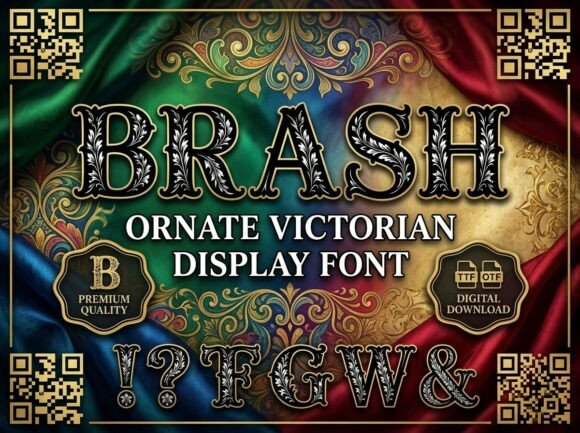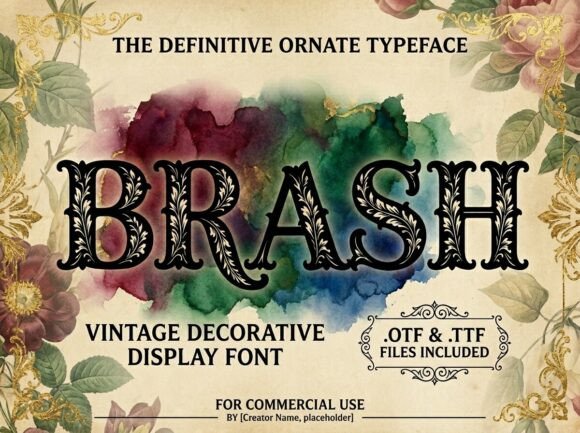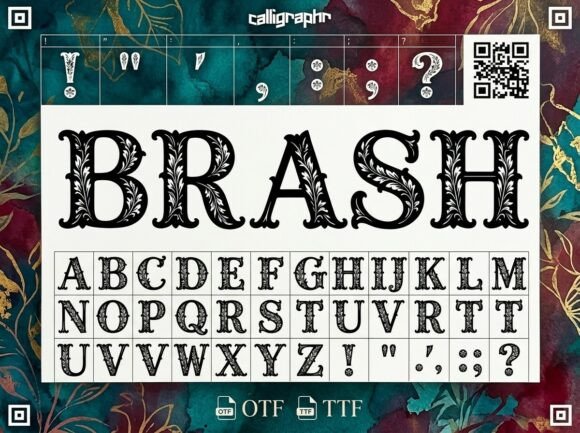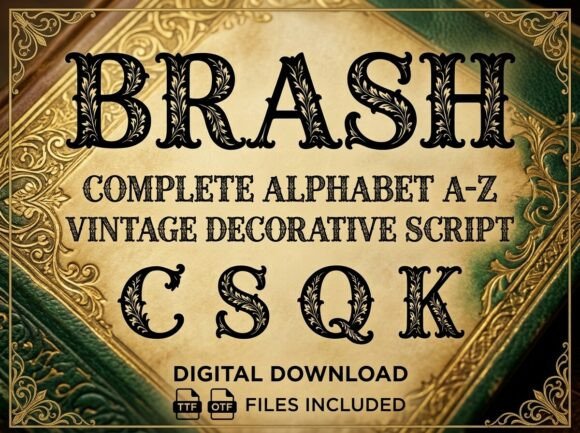
Evoke the Grandeur of the Victorian Era with Brash Font
In the realm of typography, few fonts capture the essence of the Victorian era as effortlessly as Brash. This regal display typeface embodies a “classic-and-curated” soul, transporting designers and crafters to an era of grandeur and opulence. With its stately serif letterforms, rhythmic hand-drawn “acanthus leaf” filigree, and baroque flourishes, Brash is the perfect choice for those seeking to add a touch of luxury and sophistication to their designs.
The Inspiration Behind Brash
Brash draws inspiration from the ornate and intricate designs of the Victorian era. The font’s creator aimed to capture the essence of antique bookplate engraving and modern luxury branding, blending the two to create a unique and prestigious typeface. The result is a font that exudes elegance and refinement, perfect for high-end branding and packaging.
Unique Characteristics of Brash
So, what sets Brash apart from other fonts? The answer lies in its distinctive features. The font boasts:
- Stately serif letterforms that evoke a sense of grandeur and sophistication
- An internal texture of rhythmic, hand-drawn “acanthus leaf” filigree that adds a touch of elegance
- Baroque flourishes that bridge the gap between antique and modern design
- A medium structural weight that lends itself to high-impact designs
Perfect Applications for Brash
Given its prestigious personality and ornate details, Brash is ideal for a range of applications, including:
- Independent distillery identities: Add a touch of luxury to your whiskey or gin branding
- Boutique apothecary logos: Create a sophisticated and high-end image for your herbal remedies or skincare products
- Premium cigar packaging: Elevate your cigar branding with a font that exudes opulence and refinement
- High-impact social media headers: Make a statement with Brash’s ornate and eye-catching design
Why Choose Brash?
With so many fonts available, why choose Brash? The answer lies in its versatility and uniqueness. Brash is more than just a font – it’s a design statement. Its ability to evoke the grandeur of the Victorian era, combined with its modern luxury feel, makes it an excellent choice for designers and crafters seeking to create high-end branding and packaging.
Tips for Using Brash Effectively
To get the most out of Brash, consider the following tips:
- Use Brash as a display font to make a statement
- Pair Brash with simpler fonts to create visual contrast
- Experiment with different colors and textures to enhance the font’s ornate details
- Don’t be afraid to get creative and add your own flourishes to Brash’s design
In conclusion, Brash is a regal display typeface that embodies the grandeur and opulence of the Victorian era. With its unique characteristics, prestigious personality, and versatility, Brash is the perfect choice for designers and crafters seeking to create high-end branding and packaging. Whether you’re looking to create a luxurious distillery identity or a sophisticated social media header, Brash is sure to make a statement.